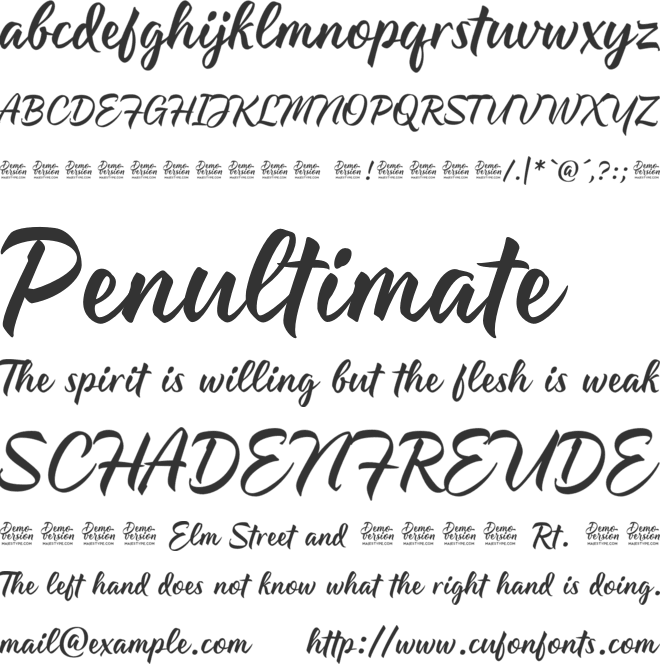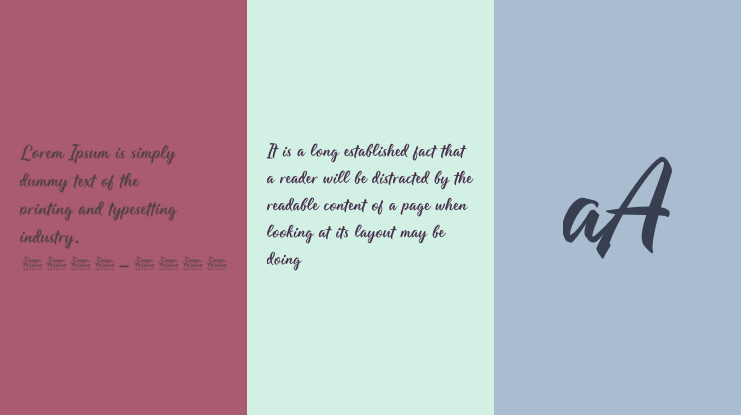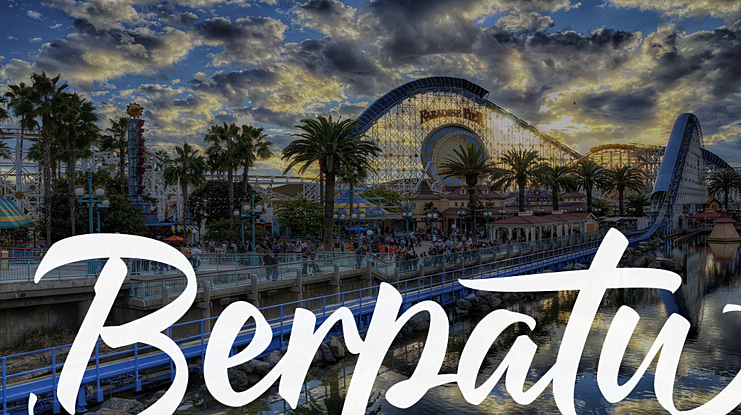
Dexsar Harry Anugrah
Berpatu is a brush lettering font inspired by the signature retro and vintage designs that can be found in shop windows and billboards on the street. Made with passion using brush pen. This font brings a unique, retro and vintage feel to your designs.
Comes with 300+ glyphs and support OpenType features like ligatures, contextual alternate and swash variant. It can provide many possibilities for creating great looking designs and perfect for signage, display, titles, poster, tees, logos, ads, billboard, packaging and more.